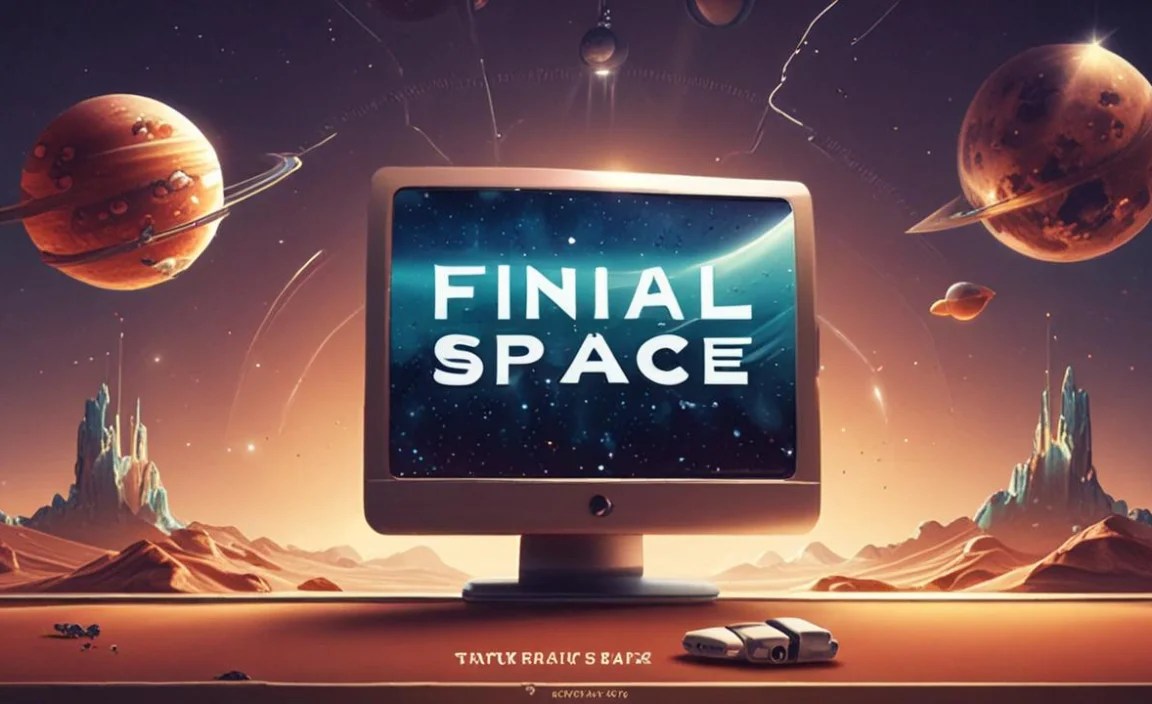
The Final Space font is a distinct, almost retro-futuristic sans-serif typeface that captures the adventurous and sometimes quirky spirit of the animated series. Finding the exact font or suitable alternatives is key for fans wanting to recreate its look for personal projects, fan art, or even unofficial merchandise. This guide will help you identify it and find the best matching fonts for your needs.
Ever stumbled upon something so visually striking it instantly tells a story? That’s the magic of a great font! The animated show Final Space has a look that’s truly out of this world, and a big part of that charm comes from its memorable title design and in-show typography. If you’ve been admiring that distinctive “Final Space font” and want to bring a piece of that galactic adventure into your own creative space, you’re in the right place.
It can sometimes feel like a treasure hunt looking for specific fonts used in popular media. The good news is, we’re here to guide you through the nebula of typography. We’ll help you identify the font that gives Final Space its unique character and explore fantastic alternatives that capture the same vibe. Get ready to launch your designs to new heights!
Understanding the “Final Space Font”
When we talk about the “Final Space font,” we’re usually referring to the typeface used in the show’s iconic logo and often within the series itself for titles, on-screen text, and even prop designs. This font has a personality all its own – it feels modern yet slightly retro, clean but with a touch of playful imperfection. It’s a sans-serif, meaning it doesn’t have the little decorative strokes (called serifs) at the ends of its letters. This gives it a straightforward, no-nonsense feel, perfect for a space adventure where danger lurks around every asteroid.
The primary characteristic of the Final Space logo font is its geometric structure combined with slightly condensed letterforms. The letters are well-spaced, making them very readable, which is crucial for both animated titles and any practical application. Think of it as a font that’s ready for action, yet sophisticated enough to convey the show’s deeper emotional moments.
Key Features of the Final Space Logo Font:
- Sans-Serif: Clean, modern lines without serifs.
- Geometric Basis: Many letters are built from simple geometric shapes like circles and straight lines.
- Slightly Condensed: The letters are a bit narrower than average, allowing for tighter spacing.
- Uniform Stroke Width: The thickness of the lines within the letters is mostly consistent.
- Distinctive Character Shapes: Some letters, like the ‘A’ or ‘R’, might have unique angles or cuts that give it extra flair.
Identifying the Exact Final Space Font (and the Challenge)
The quest for “the” Final Space font can be a little tricky because shows often commission custom modifications or use fonts that aren’t widely available. For the Final Space logo, the closest identifiable font is often cited as Eurostile, or a highly customized version of it. Eurostile is a classic, recognizable font from the 1960s, known for its futuristic, geometric appeal, which perfectly suits the show’s sci-fi setting.
However, there’s a catch. The actual font used in the Final Space logo might be a modified version of Eurostile, or even a completely different font with similar characteristics. Designers sometimes tweak existing fonts – altering curves, adjusting widths, or changing terminals – to create something unique. This is common practice to ensure a brand’s visual identity stands out. Therefore, while Eurostile is an excellent starting point and a close match, it might not be 100% identical to the show’s official logo.
When browsing font marketplaces or libraries, you might find fonts described as “similar to Eurostile” or “inspired by Eurostile.” These can also be great options if you’re aiming for that specific Final Space aesthetic. The key is to look for those geometric qualities, clean lines, and that slightly condensed, futuristic feel.
Excellent “Final Space Font” Alternatives
Don’t worry if finding the identical font proves to be a journey through hyperspace! There are many fantastic sans-serif fonts that capture the essence of the Final Space style. These alternatives are great for projects where you want to evoke the show’s spirit without needing an exact replica. We’ve curated a list of fonts that share similar design DNA – geometric, clean, and with a touch of sci-fi allure.
Top Picks for Final Space-Inspired Fonts:
- Eurostile / Microgramma: As mentioned, Eurostile is the closest. It’s a staple for a reason, offering that true retro-futuristic vibe. Its condensed versions are particularly strong contenders. It’s a commercially licensed font, so you’ll need to purchase it for professional use.
- Orbitron: This is a fantastic free font available on Google Fonts. Orbitron is explicitly designed with a futuristic, geometric aesthetic. It’s highly versatile and comes in several weights, making it a go-to for screen text and titles that need a sci-fi punch.
Whether you’re aiming for the iconic look of the show with Eurostile, or exploring brilliant free alternatives like Orbitron or Rajdhani, you now have the knowledge to make informed typographic choices. Remember to consider how the font works with your overall design, ensuring readability and evoking the right mood. So go ahead, pick your font, space out your letters, and launch your creative projects into the cosmos!